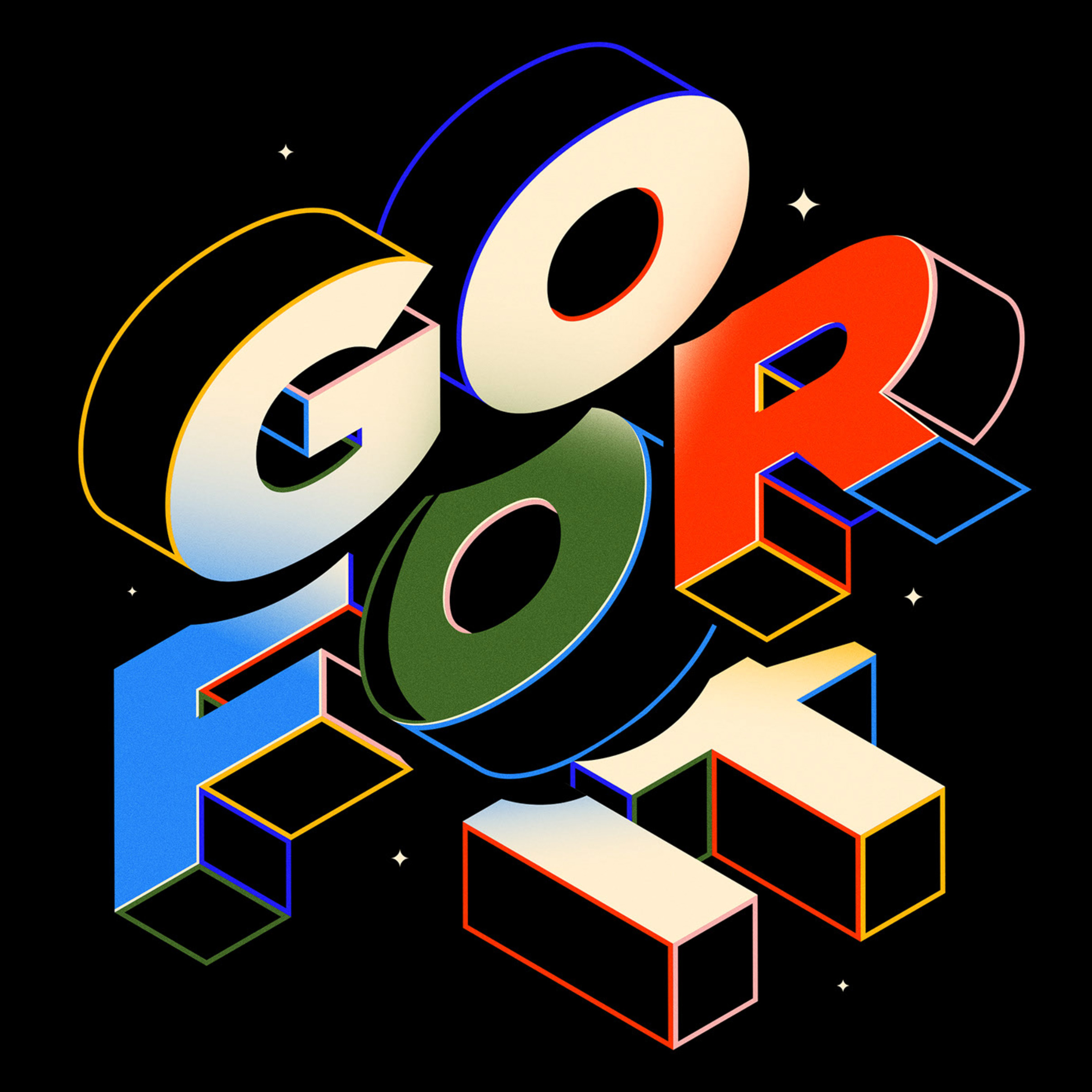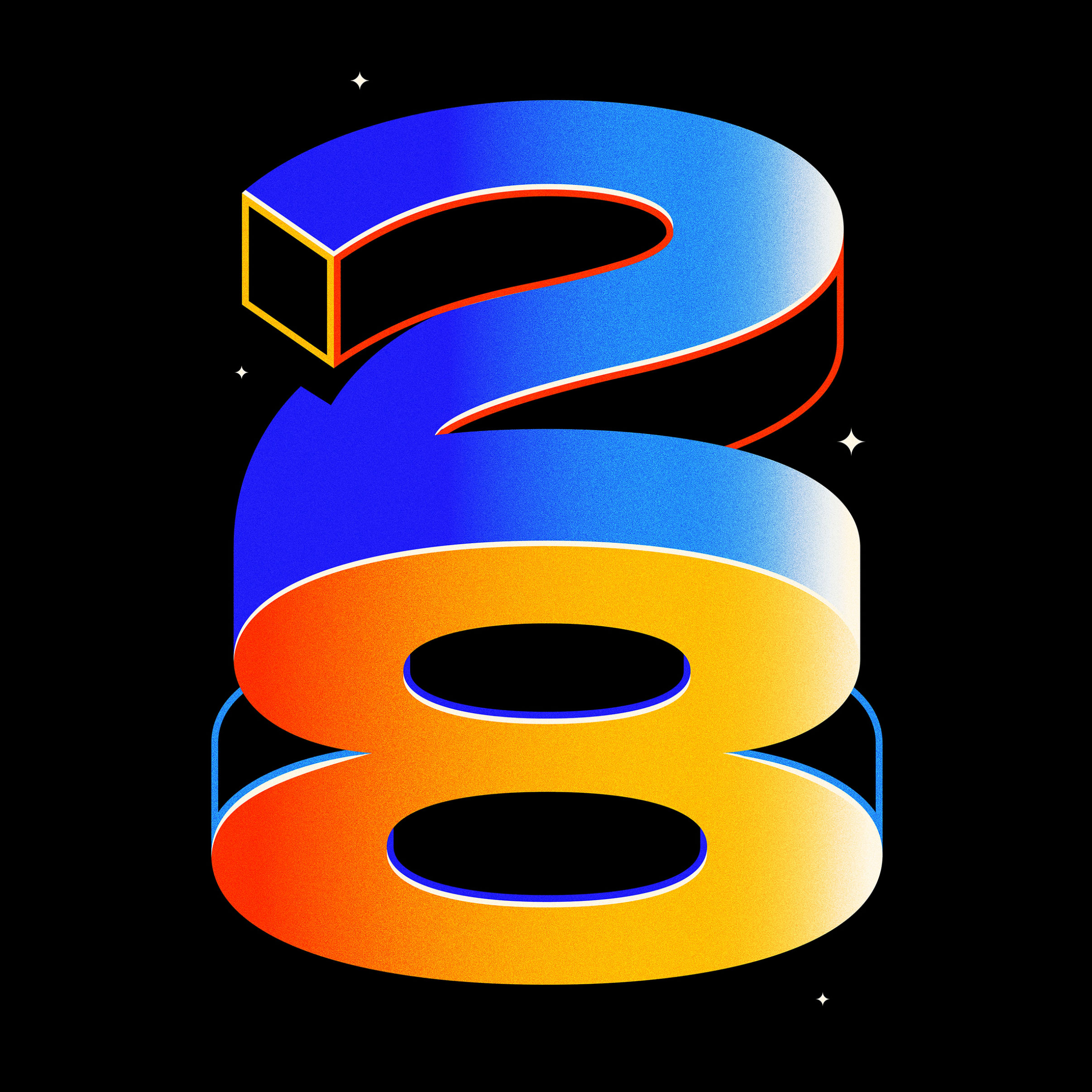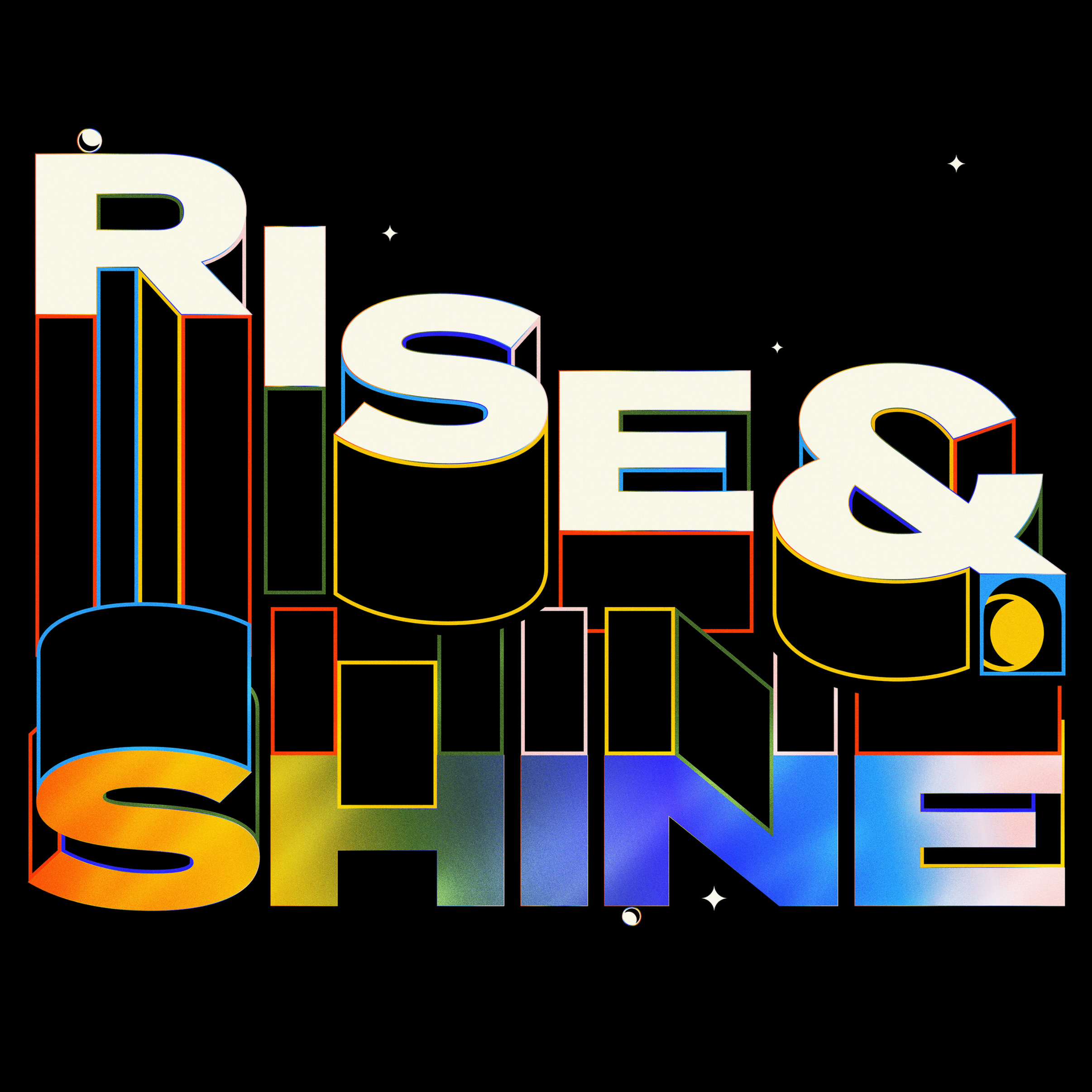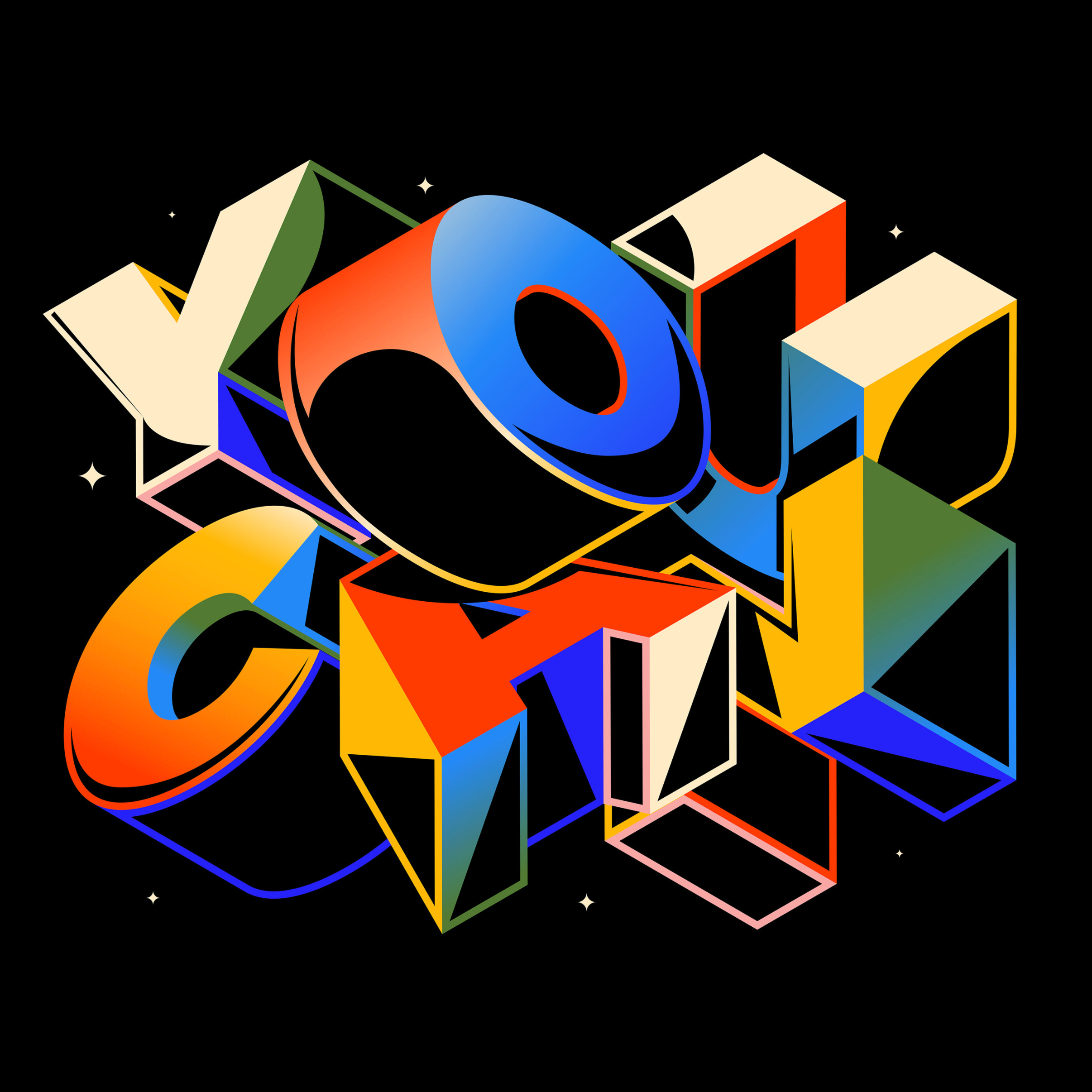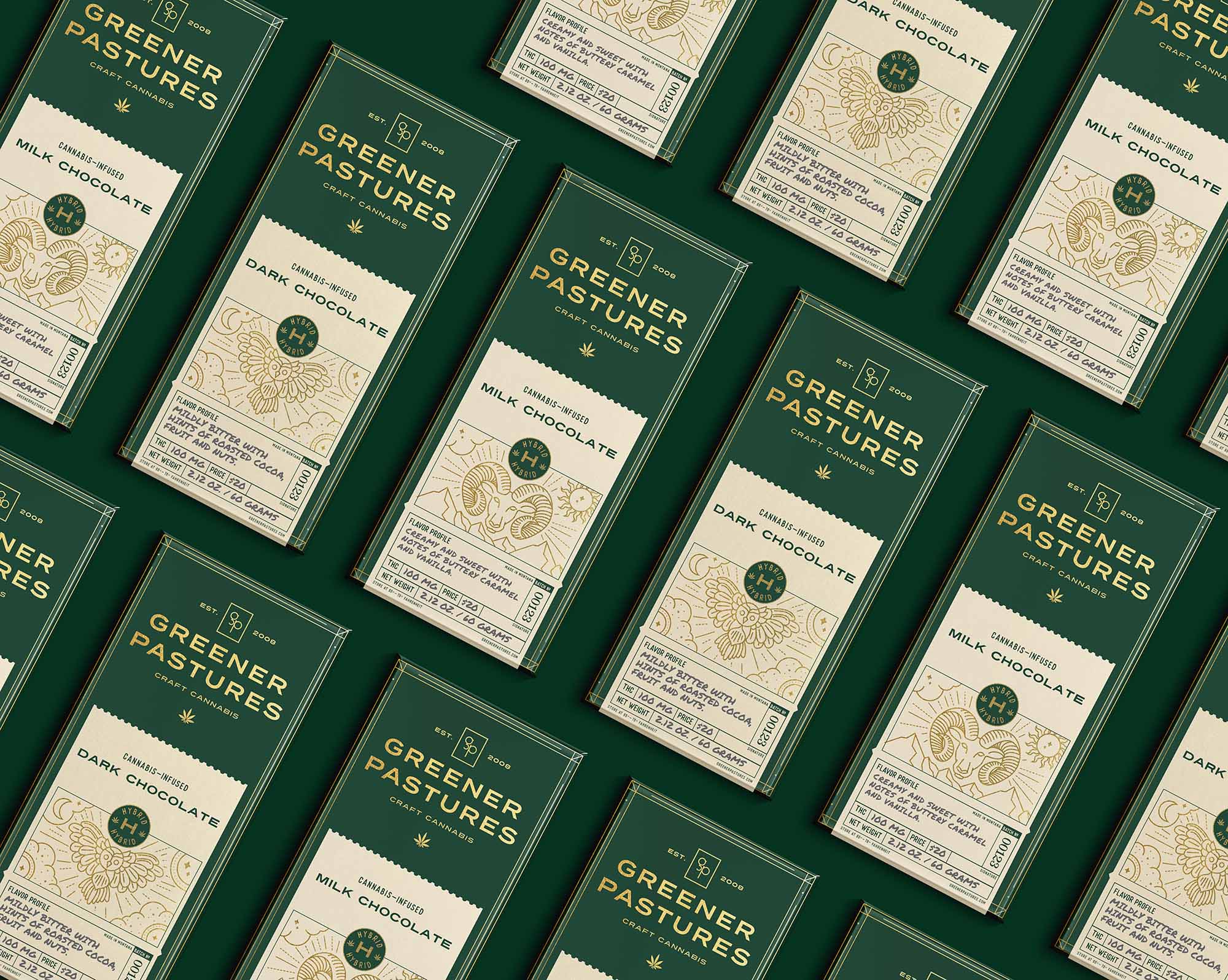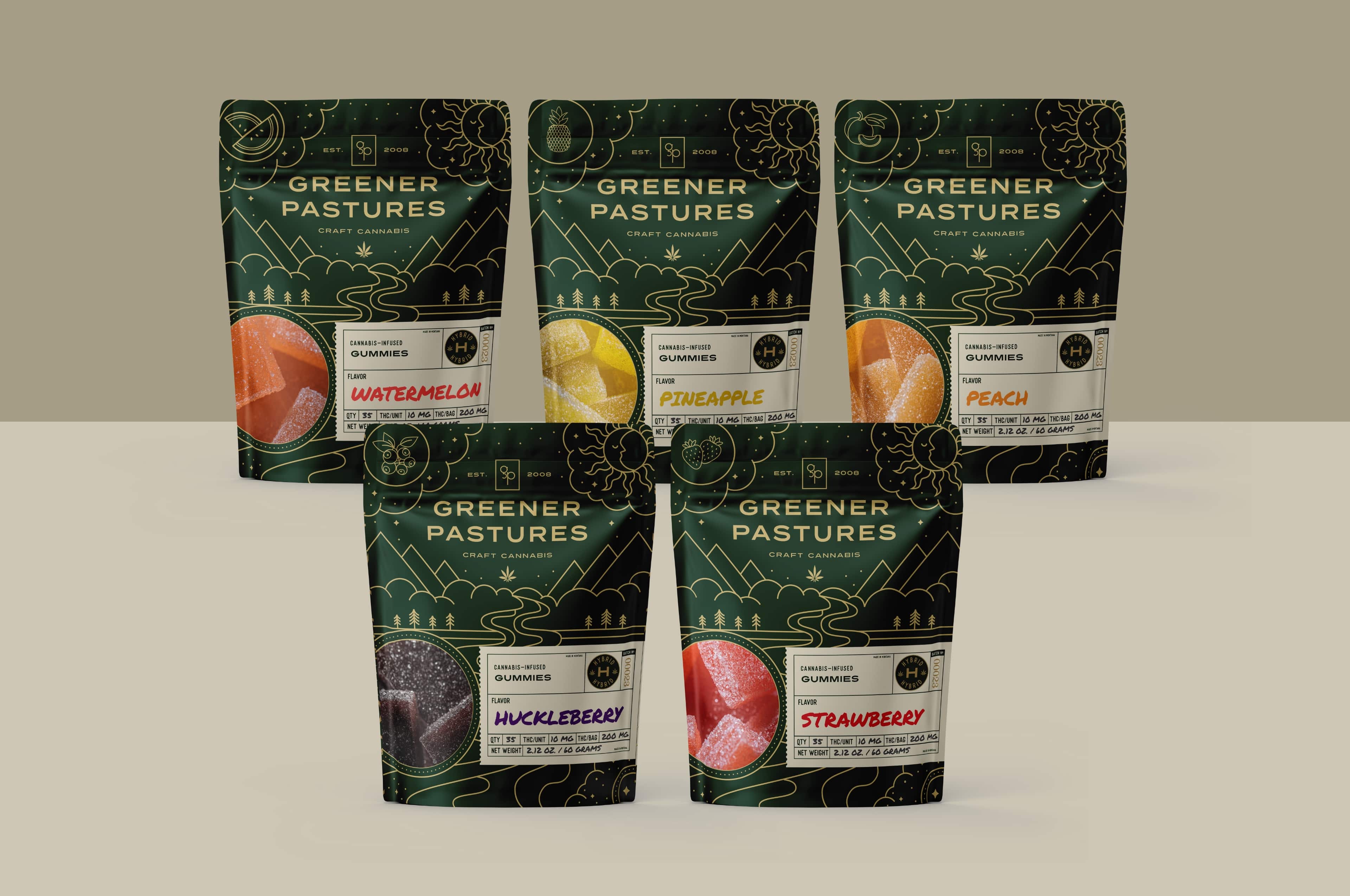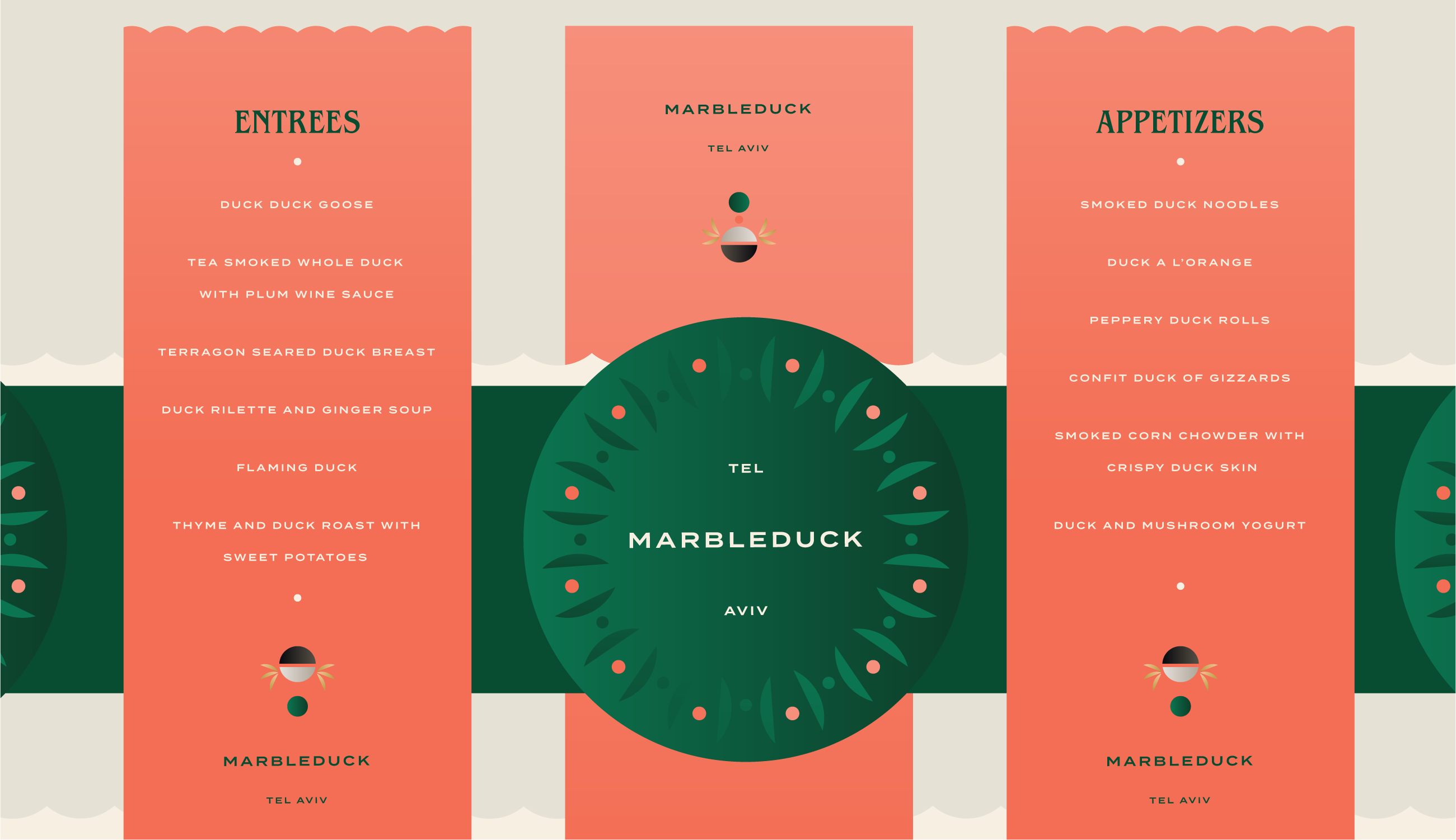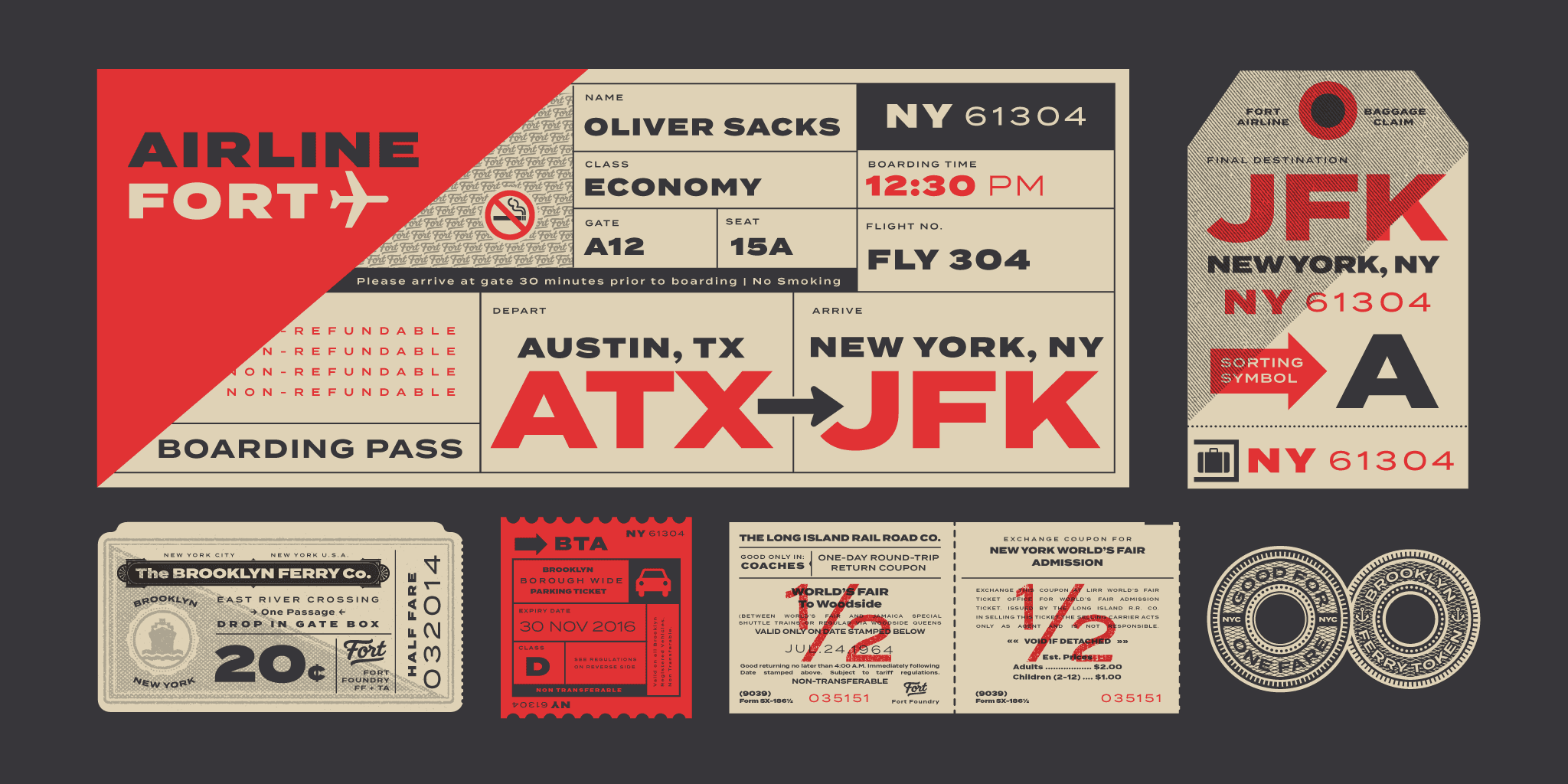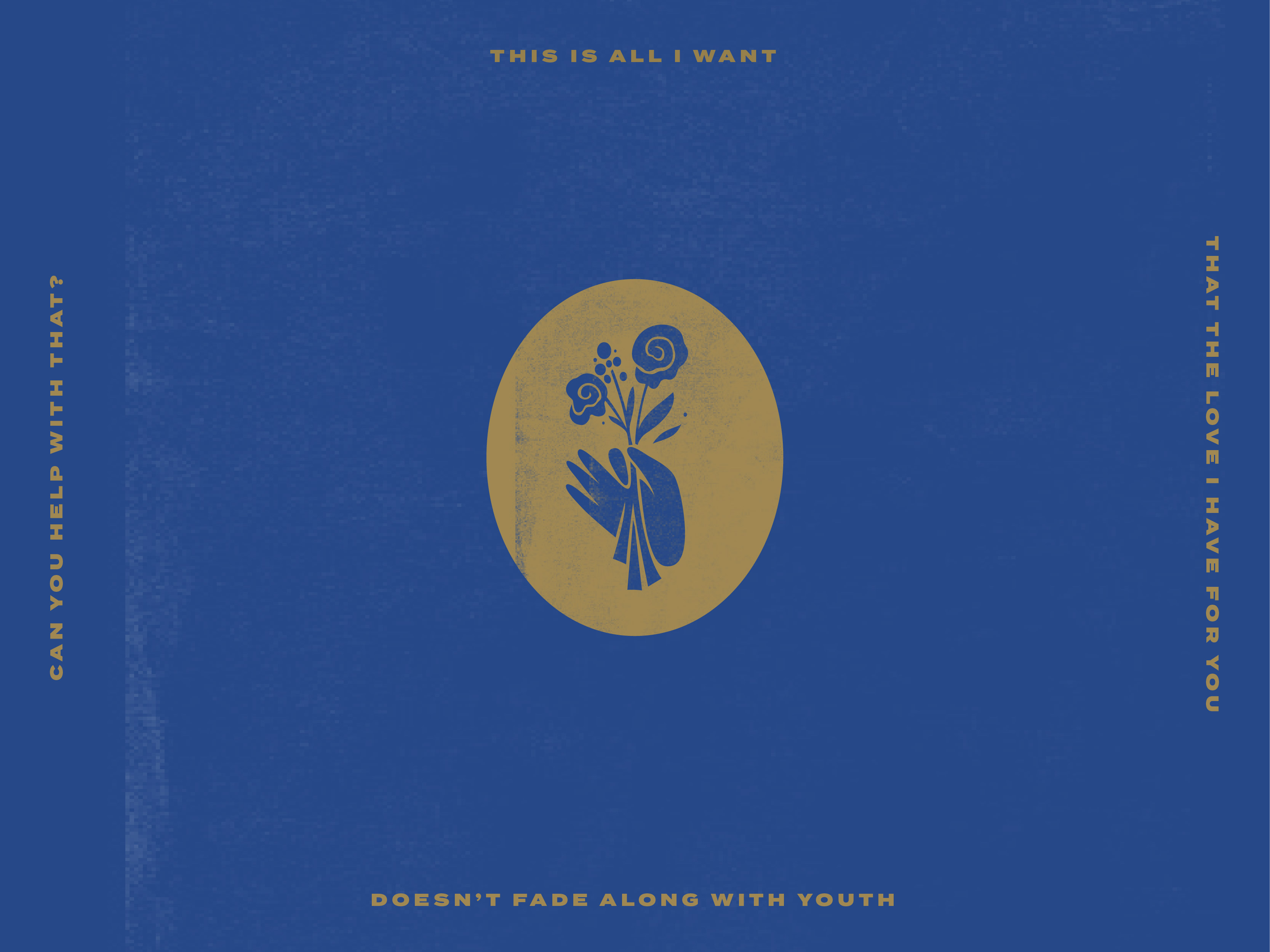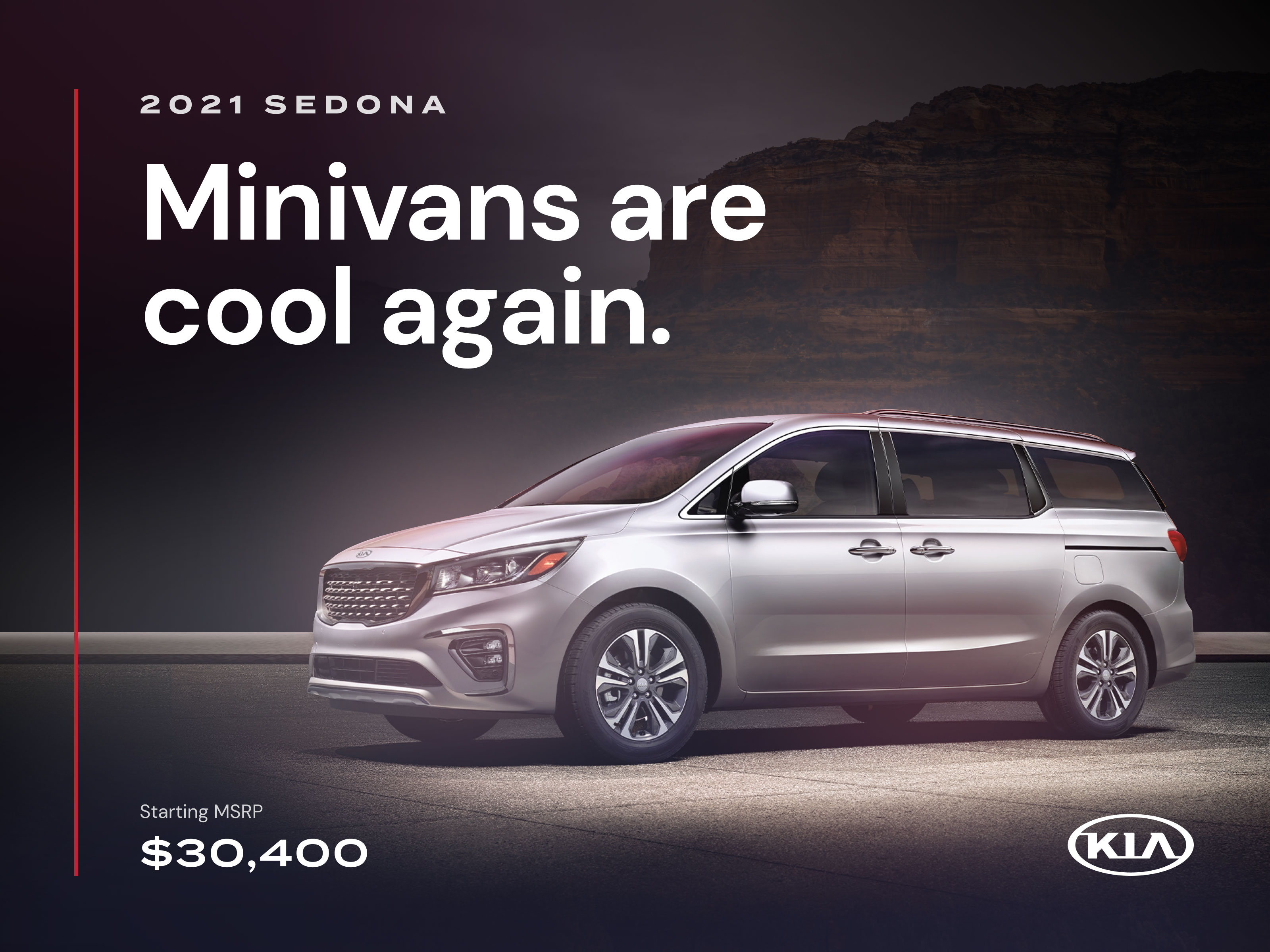
Termina
Category
Sans
9 Styles
Features
Small Caps
Oldstyle Numbers
Subscripts & Superscripts
Fractions
A stalwart geometric sans with generously wide letterforms.
The various uses can range from advertising to logotype—from small descriptors to pull quotes. The family’s high x-height and wide letterforms help retain legibility and readability at smaller sizes.